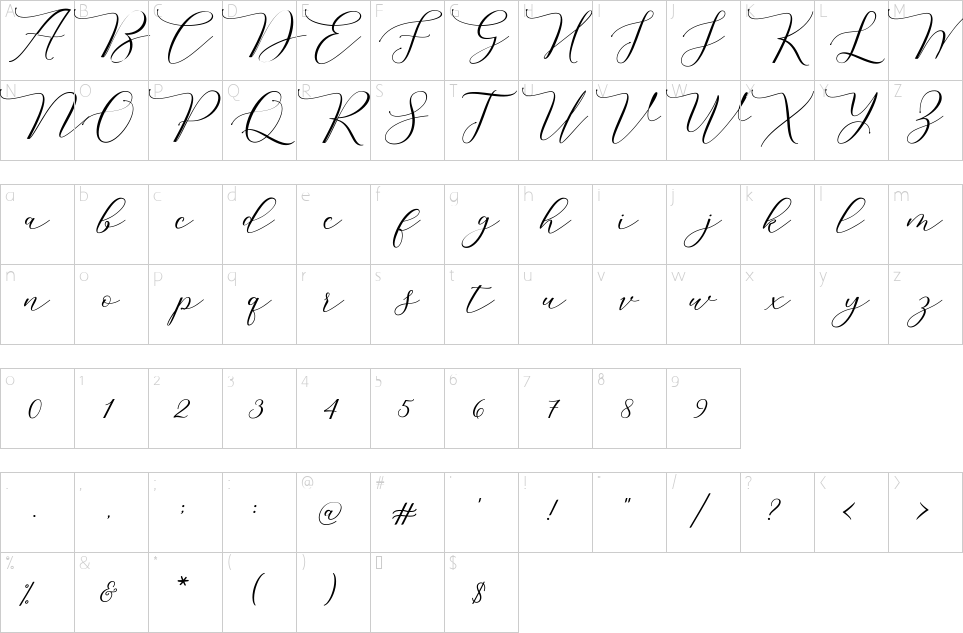
Melinda Script Font
Melinda Script Font - The melinda is a smooth, elegant and flowing handwritten font. ← back to family page. Web about melinda script font family. Web 473,874 downloads (95 yesterday) free for personal use. Web melinda script font family | fonts.com.